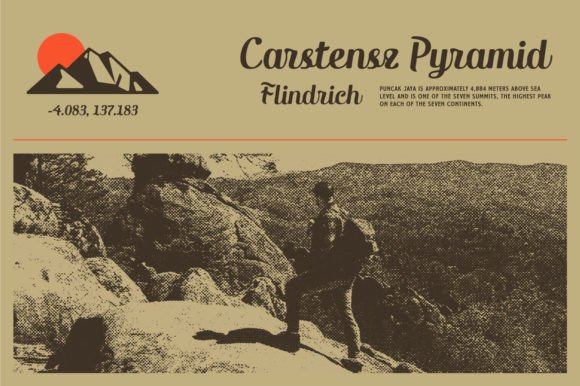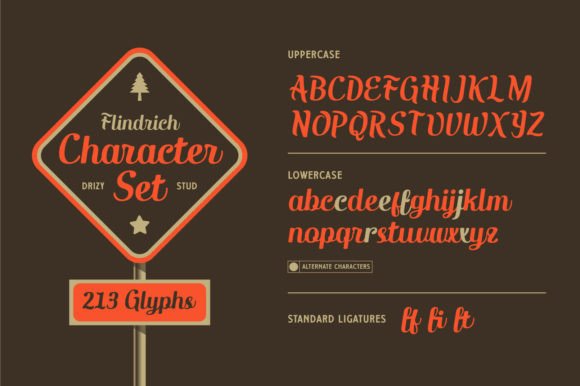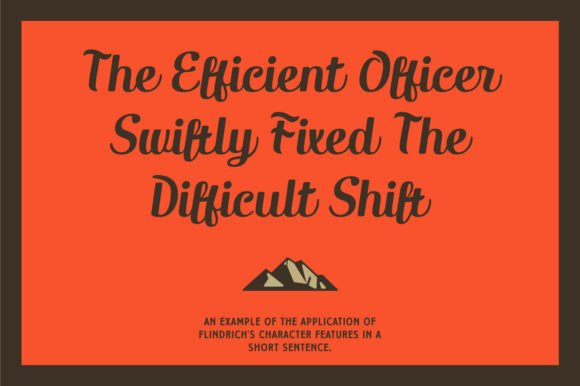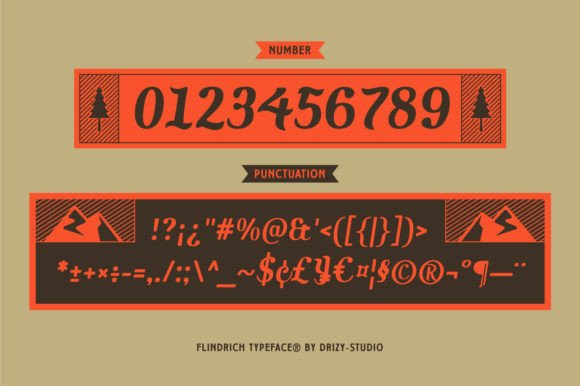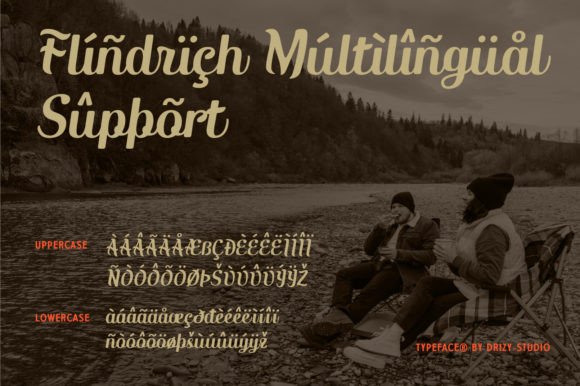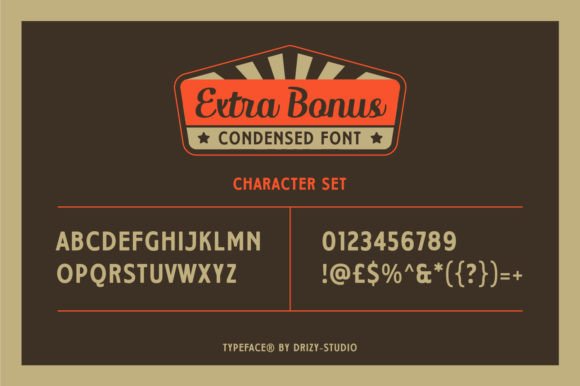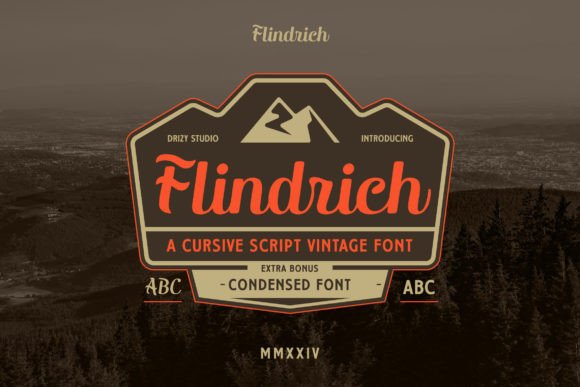
Discover the Flindrich Font: A Cursive Script Vintage Font for Adventure-Seekers
Are you a designer or crafter looking for a unique and adventurous typeface to capture the spirit of exploration and rugged outdoor experiences? Look no further than the Flindrich Font, a bold and hand-crafted cursive script vintage font that’s perfect for branding projects related to travel, outdoor activities, and adventure sports.
The Inspiration Behind Flindrich
Flindrich is an adventurous patch unique typeface that’s inspired by classic adventure logos and patches. Its rough edges and organic lines evoke a sense of authenticity and nostalgia, making it an excellent choice for designers and crafters who want to add a touch of vintage charm to their projects.
Key Features of Flindrich
• Bold and hand-crafted lettering: Flindrich features bold, hand-crafted lettering with a vintage touch that’s perfect for making a statement.
• Rough edges and organic lines: The font’s rough edges and organic lines give it a sense of authenticity and nostalgia that’s perfect for outdoor and adventure-themed projects.
• Cursive script: Flindrich is a cursive script font that’s perfect for adding a touch of elegance and sophistication to your designs.
• Vintage feel: The font’s vintage feel is reminiscent of classic adventure logos and patches, making it perfect for designers and crafters who want to add a touch of nostalgia to their projects.
• Condensed font: Flindrich also comes with a condensed font, making it perfect for designers and crafters who want to add a touch of adventure to their projects without sacrificing style.
Perfect for Outdoor and Adventure-Themed Projects
Flindrich is perfect for designers and crafters who want to add a touch of adventure to their outdoor and adventure-themed projects. Whether you’re working on a branding project for a travel company, an outdoor gear retailer, or an adventure sports team, Flindrich is the perfect choice.
What You Can Create with Flindrich
With Flindrich, the possibilities are endless. Here are some ideas to get you started:
• Logos and branding: Use Flindrich to create bold and adventurous logos and branding materials for your outdoor and adventure-themed projects.
• Posters and flyers: Add a touch of vintage charm to your posters and flyers with Flindrich’s cursive script and bold lettering.
• Social media graphics: Use Flindrich to create eye-catching social media graphics that capture the spirit of adventure and exploration.
• Packaging and labels: Add a touch of adventure to your packaging and labels with Flindrich’s bold and hand-crafted lettering.
Why Choose Flindrich?
So why choose Flindrich over other fonts? Here are just a few reasons:
• Unique and adventurous: Flindrich is a unique and adventurous typeface that’s perfect for designers and crafters who want to add a touch of excitement to their projects.
• Vintage charm: The font’s vintage charm is perfect for designers and crafters who want to add a touch of nostalgia to their projects.
• High-quality design: Flindrich is a high-quality font that’s designed with precision and attention to detail.
In conclusion, Flindrich is a bold and adventurous cursive script vintage font that’s perfect for designers and crafters who want to add a touch of excitement to their outdoor and adventure-themed projects. With its rough edges, organic lines, and vintage charm, Flindrich is the perfect choice for anyone looking to capture the spirit of exploration and rugged outdoor experiences. So why wait? Download Flindrich today and start creating your own adventurous designs!